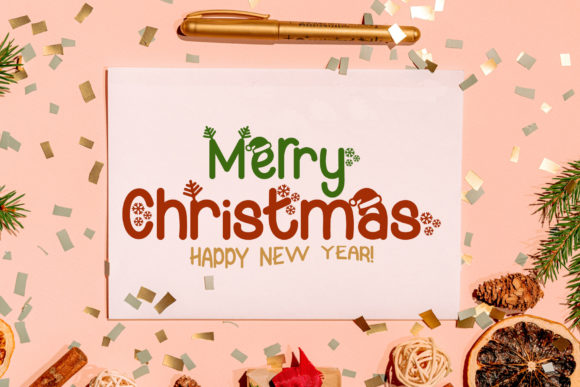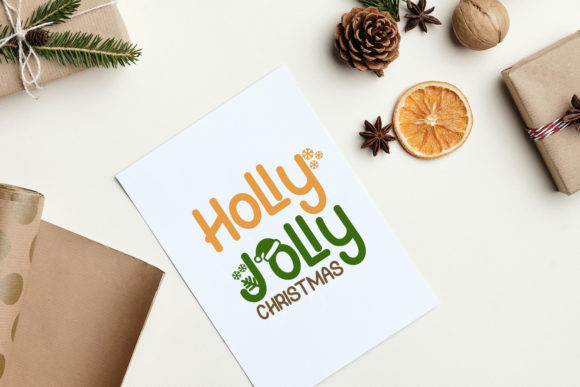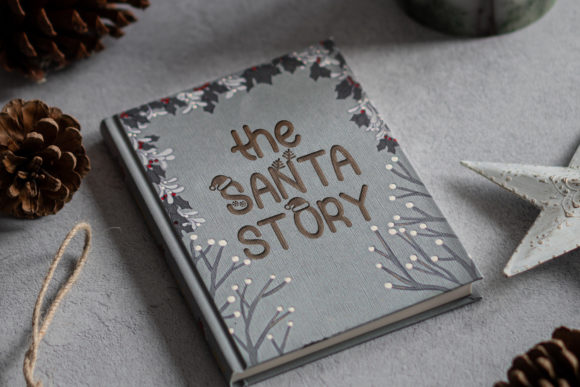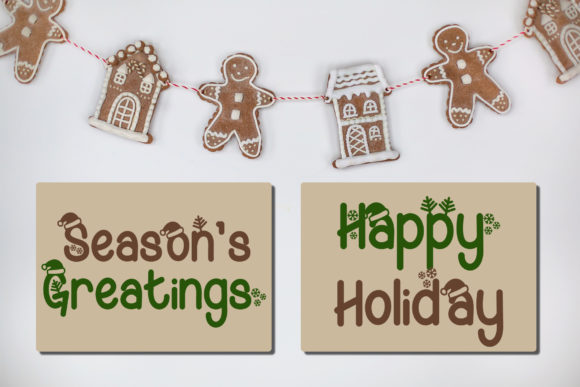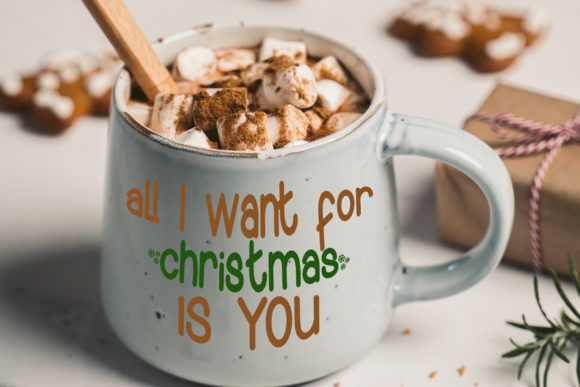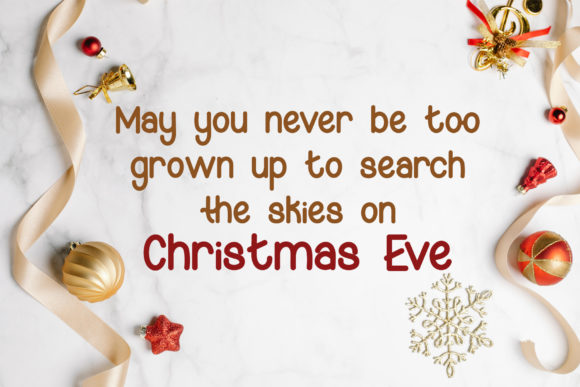
Introducing Chilly Christmas Font: A Cute and Festive Display Font for Your Holiday Creations
Are you looking for a font that will add a touch of festive fun to your holiday designs? Look no further than Chilly Christmas Font! This adorable display font is perfect for crafters, designers, and anyone looking to create eye-catching holiday projects. In this article, we’ll dive into the features and benefits of Chilly Christmas Font, and explore how you can use it to take your holiday designs to the next level.
What is Chilly Christmas Font?
Chilly Christmas Font is a cute and festive display font that’s specifically designed to add a touch of holiday cheer to your creations. With its playful and whimsical style, this font is perfect for holiday-themed designs, such as Christmas cards, gift tags, and social media graphics.
One of the best things about Chilly Christmas Font is that it’s PUA (Private Use Area) encoded. This means that you can access all of the glyphs and swashes with ease, giving you complete creative control over your designs. With PUA encoding, you don’t have to worry about complicated font editing or searching for specific characters – it’s all at your fingertips.
So, what makes Chilly Christmas Font so special? Here are just a few of its key features and benefits:
- Cute and festive design: Chilly Christmas Font is designed to be fun and playful, making it perfect for holiday-themed designs.
- PUA encoded: With PUA encoding, you can access all of the glyphs and swashes with ease, giving you complete creative control.
- High-quality design: This font is designed to be high-quality and crisp, making it perfect for printing and digital use.
How to Use Chilly Christmas Font
So, how can you use Chilly Christmas Font in your holiday designs? Here are a few ideas to get you started:
- Christmas cards: Add a personal touch to your holiday cards with Chilly Christmas Font.
- Gift tags: Create custom gift tags with this festive font.
- Social media graphics: Add some holiday cheer to your social media graphics with Chilly Christmas Font.
- Holiday crafts: Use this font to add a touch of personality to your holiday crafts, such as scrapbooking and DIY projects.
Here are a few tips and tricks to help you get the most out of Chilly Christmas Font:
- Experiment with different colors: Try pairing Chilly Christmas Font with different colors and textures to create a unique look.
- Mix and match with other fonts: Combine Chilly Christmas Font with other fonts to create a custom look.
- Use it for titles and headings: Chilly Christmas Font is perfect for titles and headings – use it to add a touch of festive fun to your designs.
Chilly Christmas Font is a fun and festive display font that’s perfect for holiday-themed designs. With its PUA encoding and high-quality design, it’s easy to use and gives you complete creative control. Whether you’re a crafter, designer, or just looking for a fun font for your holiday projects, Chilly Christmas Font is a great choice. So why wait? Download Chilly Christmas Font today and add some holiday cheer to your creations!